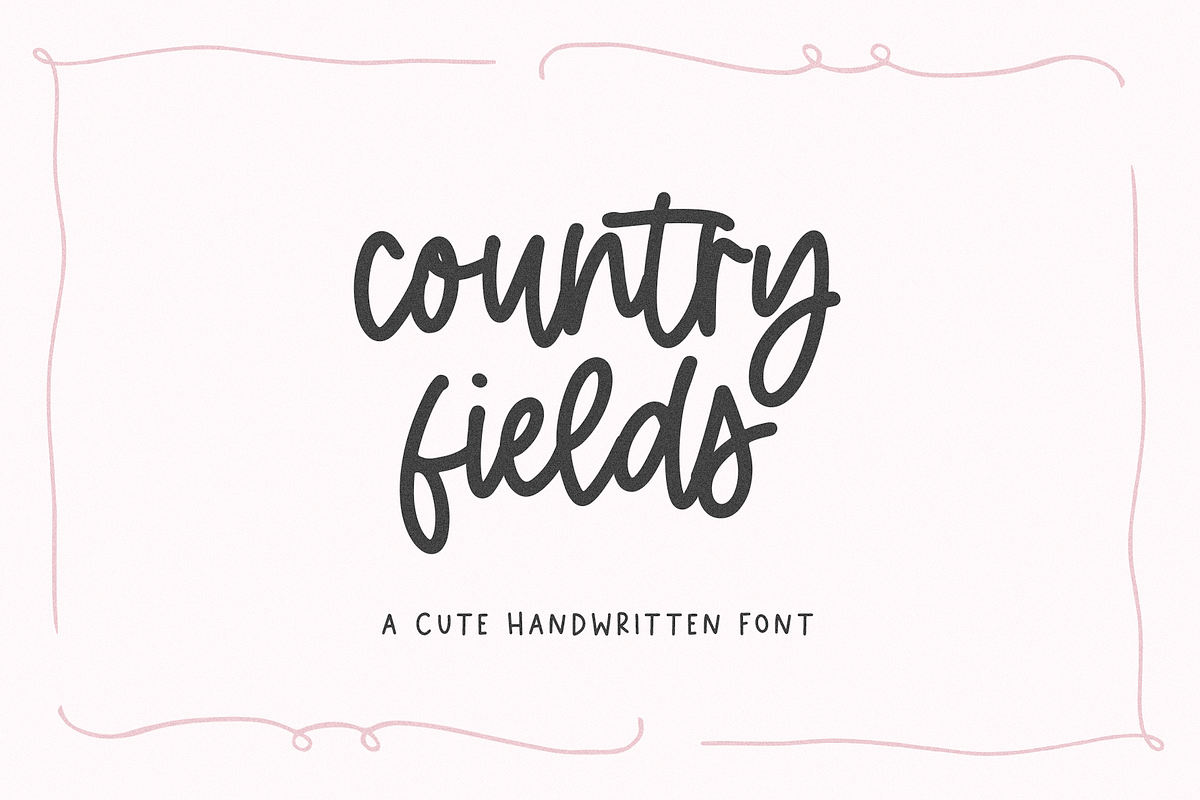
Country Fields | Cute Font Free Download
Country Fields | Cute Font Free Download is a charming and whimsical typeface designed to bring a playful, rustic feel to your designs. With its soft curves and cheerful letterforms, this font is perfect for creating casual branding, invitations, greeting cards, children’s content, and more. Whether you’re designing for a farm-to-table brand, crafting a fun event invitation, or working on a personal project, Country Fields | Cute Font Free Download gives your work a light-hearted, approachable vibe. Explore its friendly style in personal projects before purchasing a commercial license and add a touch of cuteness and warmth to your designs with this adorable, easy-to-read font.